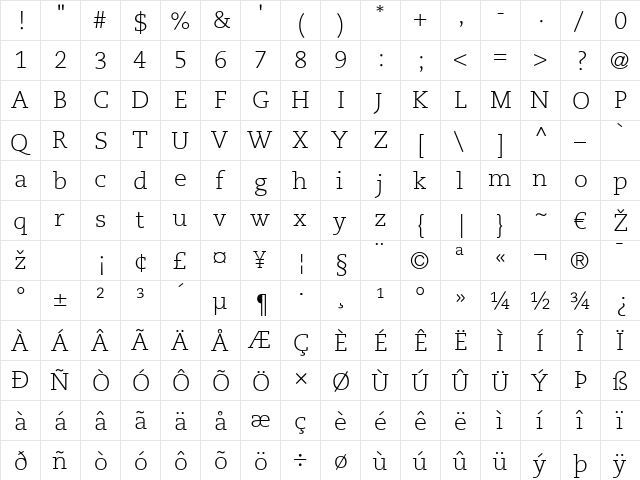
Caecilia LT Light Regular
| Foundry | Linotype Library GmbH |
Design Context for Caecilia LT Light Typeface
Caecilia LT Light offers clean, dependable letterforms without strong stylistic allegiance, making it a practical choice for designers who need flexibility. Its slender proportions lend an understated elegance to any composition.